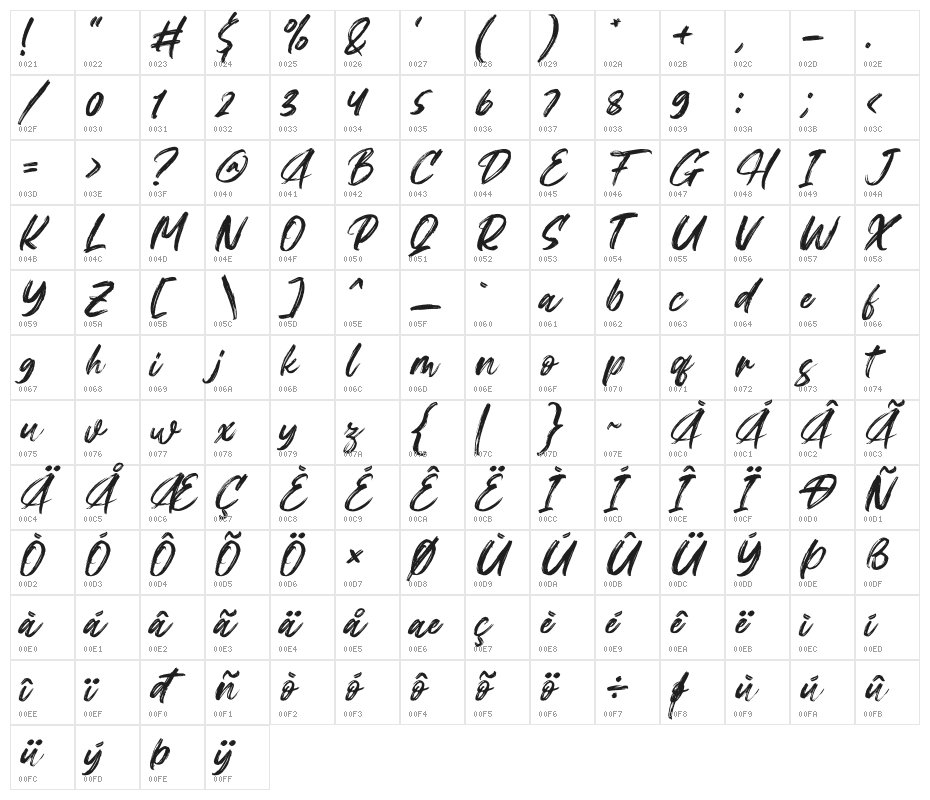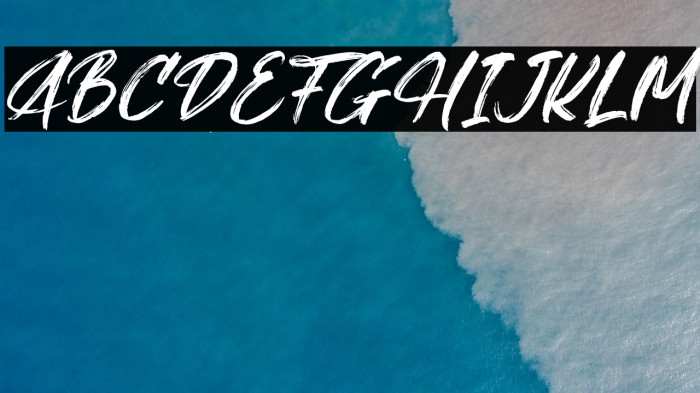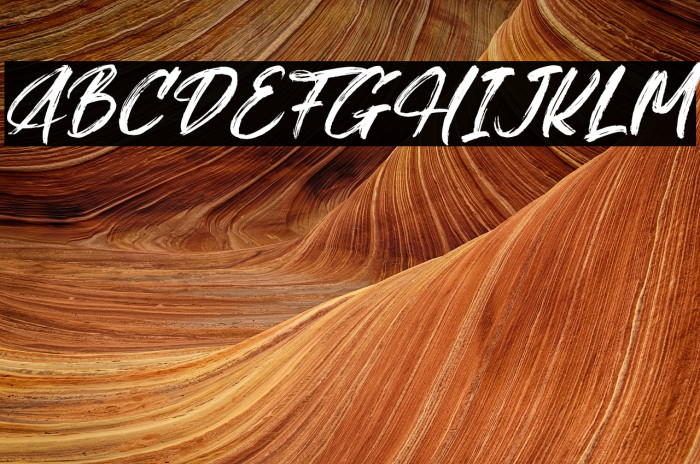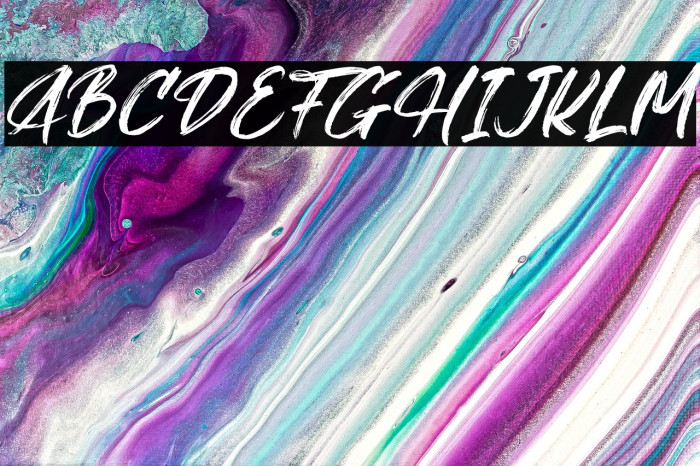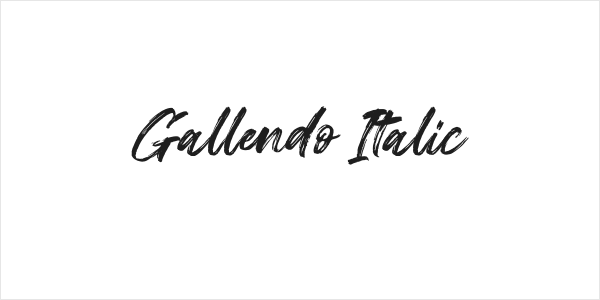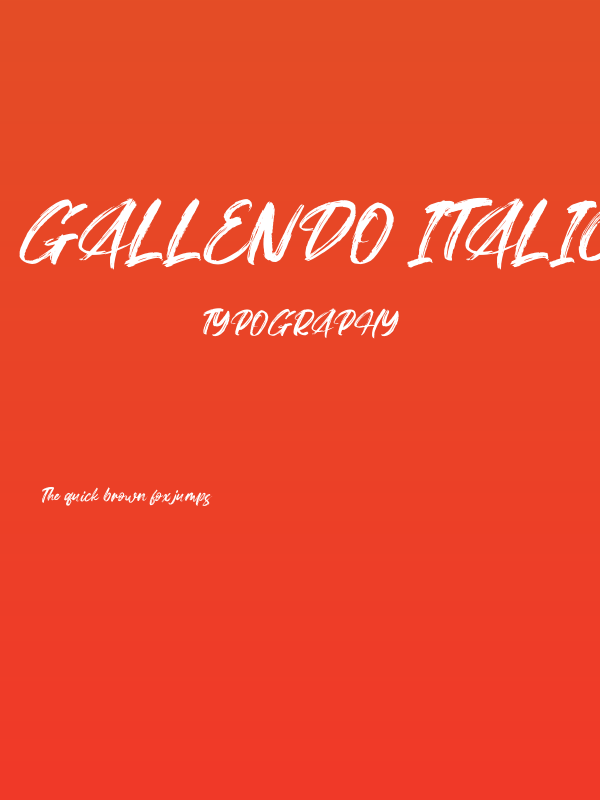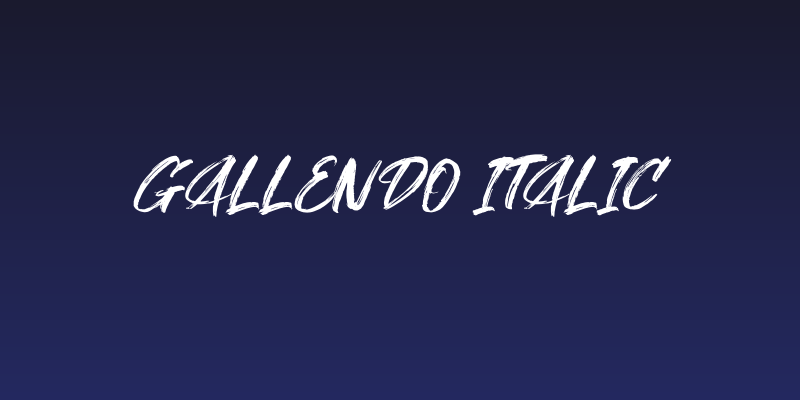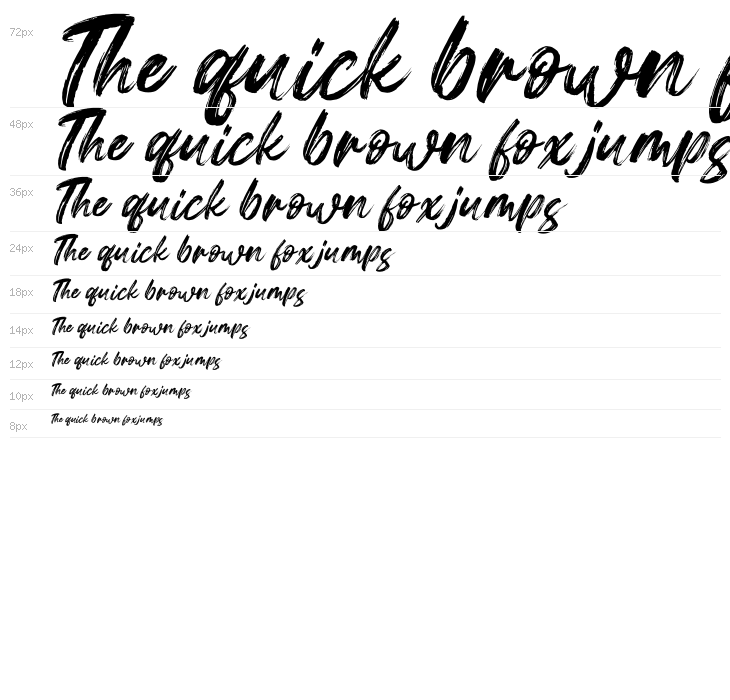
Gallendo Italic Font
Gallendo Italic Description
This font exudes a dynamic and energetic feel with its bold, brushstroke style. Each character is crafted with a sense of motion, as if painted with a swift, confident hand. The strokes vary in thickness, creating a lively texture that adds depth and personality. The uppercase letters are particularly striking, with their dramatic flourishes and sweeping lines, while the lowercase letters maintain a consistent flow, enhancing readability. Numbers and special characters are equally expressive, maintaining the font's overall aesthetic. This font is perfect for projects that require a touch of artistic flair and bold expression.